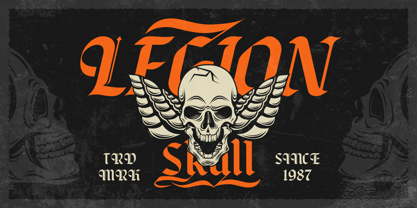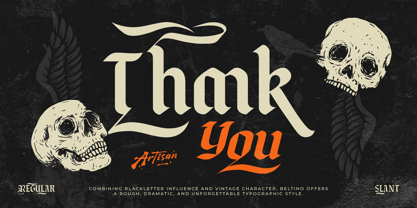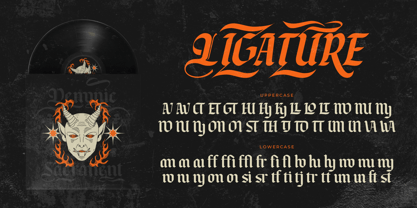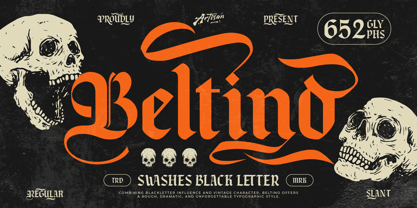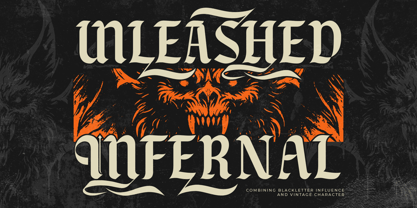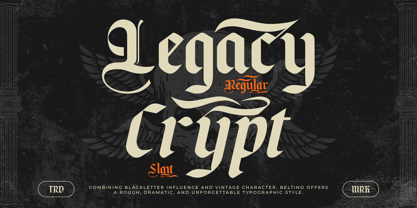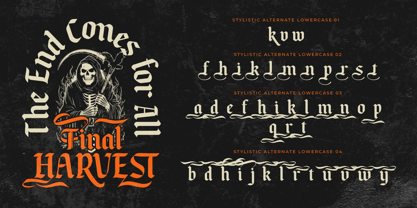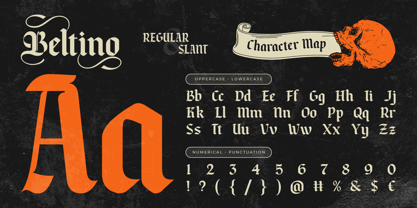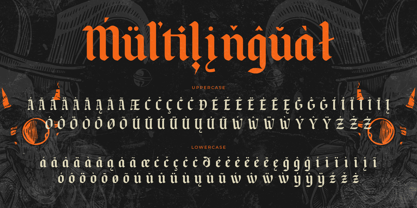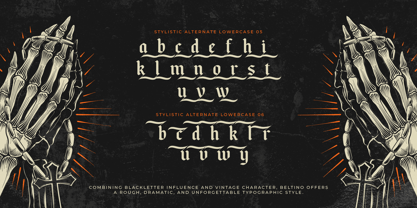
Beltino
by Artisan Themes
The Beltino Font Family was designed by Meidy Meichico and published by Artisan Themes. Beltino contains 2 styles and family package options. More about this family
Designers: Meidy Meichico
Foundry: Artisan Themes